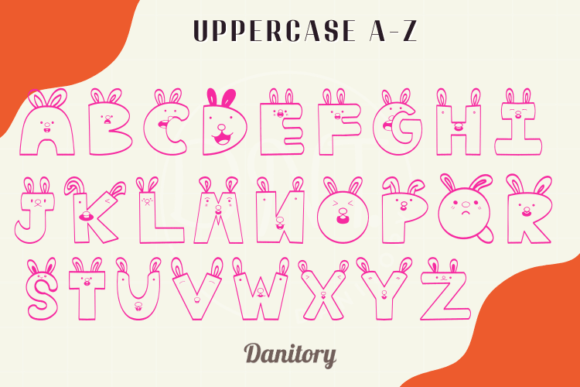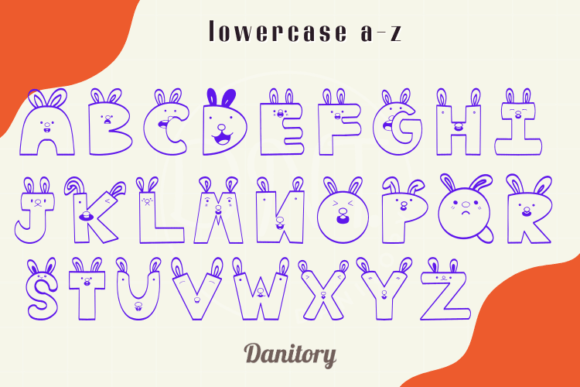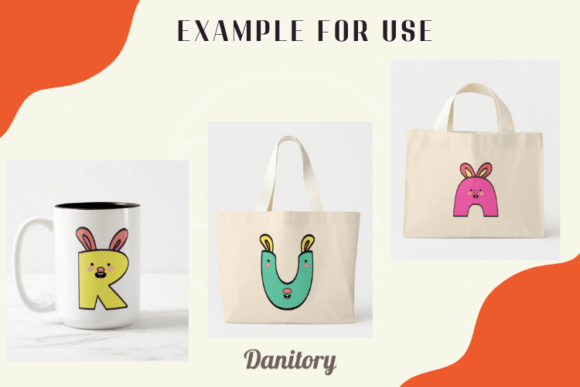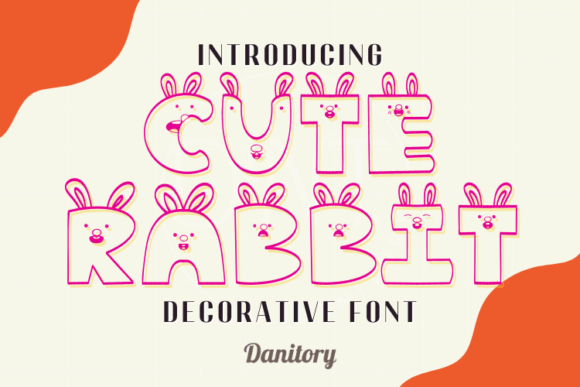
Cute Rabbit Font: The Perfect Addition to Your Easter Designs
Are you looking for a fun and playful font to add to your Easter designs? Look no further than the Cute Rabbit Font! This adorable, hand-drawn typeface is perfect for creating festive and eye-catching designs for the upcoming Easter season.
What is Cute Rabbit Font?
The Cute Rabbit Font is a decorative typeface that is specifically designed to capture the whimsical and playful spirit of Easter. With its hand-drawn and cute design, this font is sure to add a touch of personality to any project. Whether you’re a designer, crafter, or simply someone who loves to get creative, this font is a must-have for your Easter designs.
Features of Cute Rabbit Font
- Hand-drawn design: Each letter and character in the Cute Rabbit Font is carefully hand-drawn to ensure a unique and personalized touch.
- Cute and playful: The font’s design is intentionally playful and cute, making it perfect for Easter-themed designs.
- Decorative typeface: The Cute Rabbit Font is a decorative typeface that can add a touch of elegance and sophistication to your designs.
- Suitable for Easter season: The font’s Easter-themed design makes it perfect for creating festive and seasonal designs.
Uses of Cute Rabbit Font
The Cute Rabbit Font is a versatile typeface that can be used for a variety of design projects, including:
- Mugs: Add a personal touch to your mug designs with the Cute Rabbit Font.
- T-shirts: Create fun and playful Easter-themed T-shirts with this adorable font.
- Presentations: Add a touch of personality to your presentations with the Cute Rabbit Font.
- Worksheets: Create engaging and interactive worksheets for kids with this fun font.
- Digital media: Use the Cute Rabbit Font to create eye-catching social media graphics, blog posts, and other digital media.
Why Choose Cute Rabbit Font?
With so many fonts available, why choose the Cute Rabbit Font? Here are just a few reasons:
- Unique design: The Cute Rabbit Font has a unique and distinctive design that will set your designs apart from the rest.
- Easter-themed: The font’s Easter-themed design makes it perfect for creating seasonal designs.
- High-quality: The font is high-quality and comes with a range of characters and symbols to ensure you have everything you need to create stunning designs.
Tips for Using Cute Rabbit Font
Here are a few tips for getting the most out of the Cute Rabbit Font:
- Experiment with colors: The Cute Rabbit Font looks great in a range of colors, so don’t be afraid to experiment and find the perfect color scheme for your design.
- Pair with other fonts: The Cute Rabbit Font pairs well with other fonts, so try combining it with a sans-serif font for a fun and playful look.
- Use for headings: The Cute Rabbit Font is perfect for headings and titles, so use it to add a touch of personality to your designs.